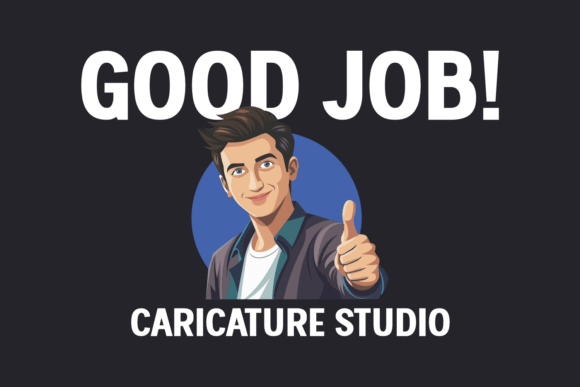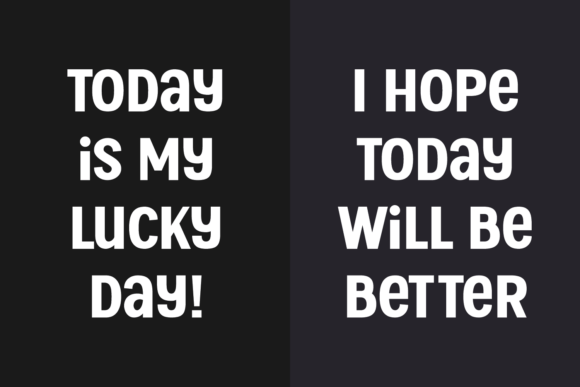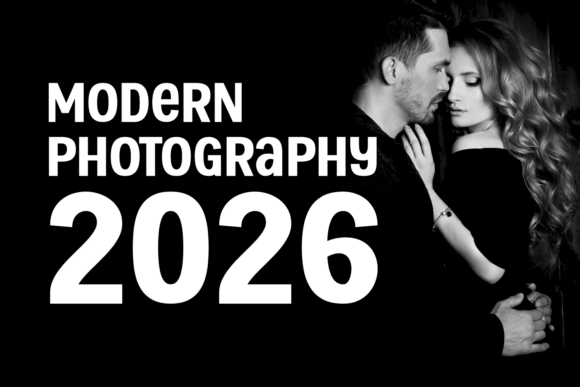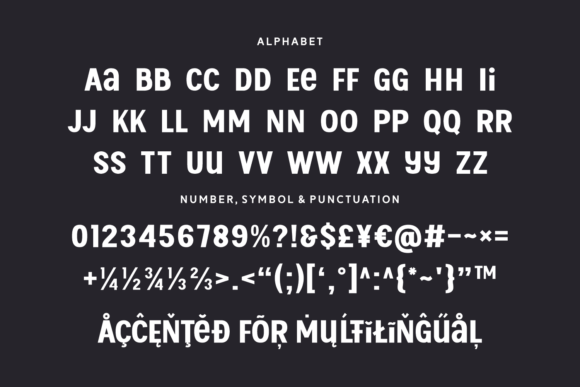
Introduction to Reacher Font
Reacher is a versatile display font that’s bold and distinct.
As a staple tool of creativity, you’ll love how it enhances your projects with its alternative and accent character sets It boasts a sophisticated authenticity whether gracing the cover of your upcoming book or featured in your newest brand design.
Key Features of Reacher Font